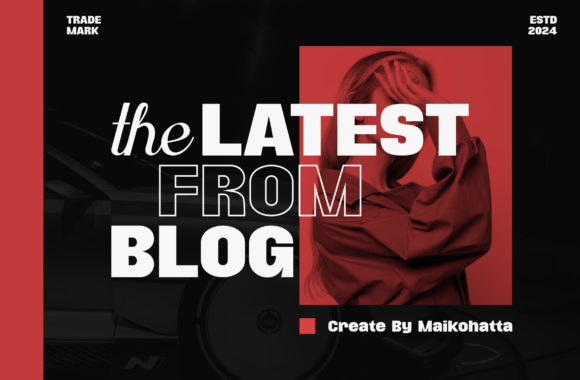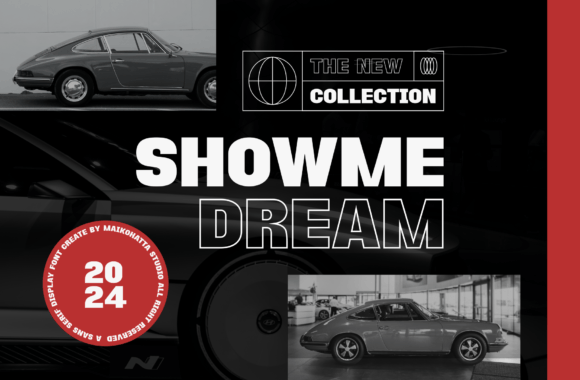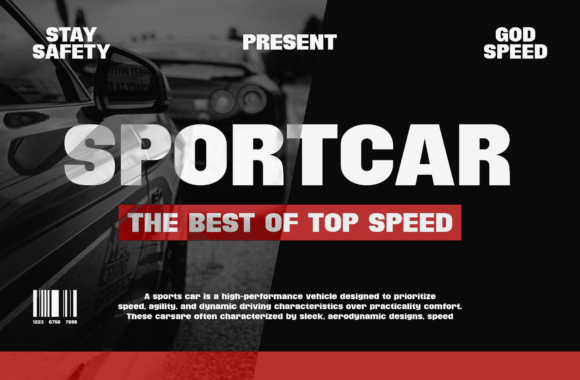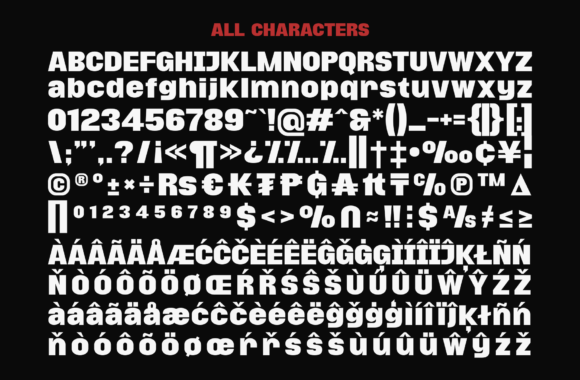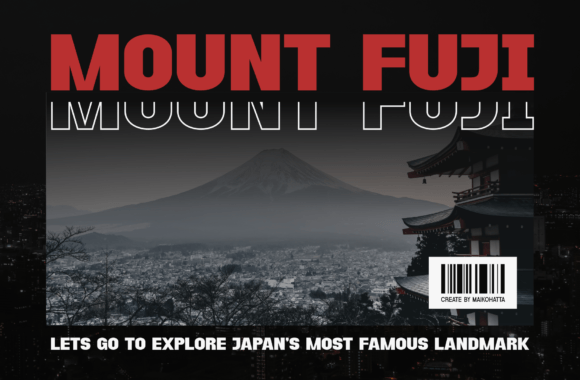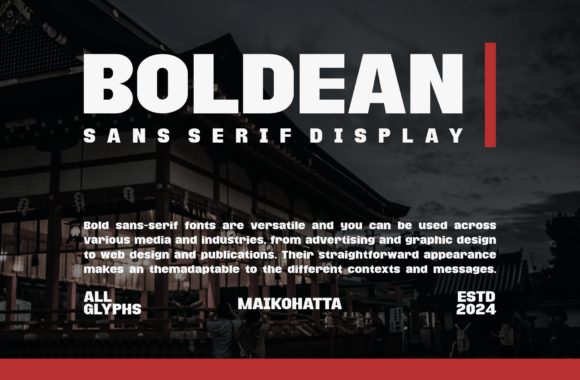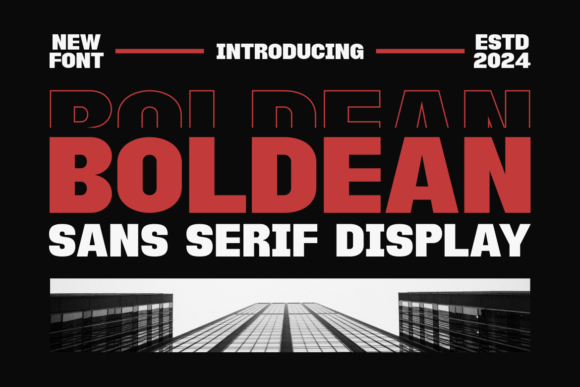
Discover the Power of Boldean – Font
Have you ever stared at a blank canvas, struggling to bring your vision to life? You know the feeling – a blank slate, endless possibilities, and a hint of creative paralysis. That’s when the right font can be the difference-maker. Introducing Boldean – Font, a bold and assertive sans serif font designed to take your creations to the next level.
Boldean – Font is more than just a typography choice – it’s a statement piece. With its sleek lines and confident demeanor, it’s the perfect addition to any design project. Whether you’re crafting a bold headline, a striking logo, or a visually stunning brochure, Boldean – Font is sure to elevate your work and leave a lasting impression.
Boldean Font Key Features
- Unique Characteristics: Boldean features a bold and modern design with clean lines and geometric shapes, making it ideal for digital and print media
Boldean Font Review
I recently had the chance to work with the Boldean font, and I must say it’s a unique and interesting addition to any design project. Here are some of the things that stood out to me:
- ✨ Expressive Character Set: The Boldean font has a distinct character set that’s perfect for adding a touch of personality to your designs. It’s ideal for use in branding, signage, and any other application where you want to convey a sense of confidence and strength.
- ✨ High-Quality Glyphs: The font’s glyphs are well-crafted, with clean lines and smooth curves. This makes it easy to read and use, even at smaller font sizes.
- ⚠️ Limited Language Support: The Boldean font is currently only available in a few languages, which may be a drawback for designers working on multilingual projects.
- ⚠️ Not Suitable for Body Text: While the font is great for headings and titles, it may not be the best choice for body text due to its bold and condensed nature.
Overall, I think the Boldean font is a great choice for designers looking to add a touch of sophistication and personality to their projects. While it may have some limitations, its unique character set and high-quality glyphs make it a valuable addition to any design library.
Alternatives to Boldean – Font for Designers
Montserrat is a popular sans-serif font designed by Julieta Ulanovsky. It is ideal for digital designs, such as mobile apps, websites, and social media platforms. Montserrat is known for its clean lines, geometric shapes, and versatility in various font sizes.
Comparison to Boldean – Font: Montserrat is more modern and geometric in its design, whereas Boldean – Font has a more vintage feel. Montserrat is also more legible at smaller font sizes, making it suitable for digital designs.
Abril Fatface is a elegant, high-contrast serif font designed by Pablo Parra. It is perfect for titles, headings, and branding materials that require a touch of sophistication. Abril Fatface is ideal for print designs, such as magazines, brochures, and business cards.